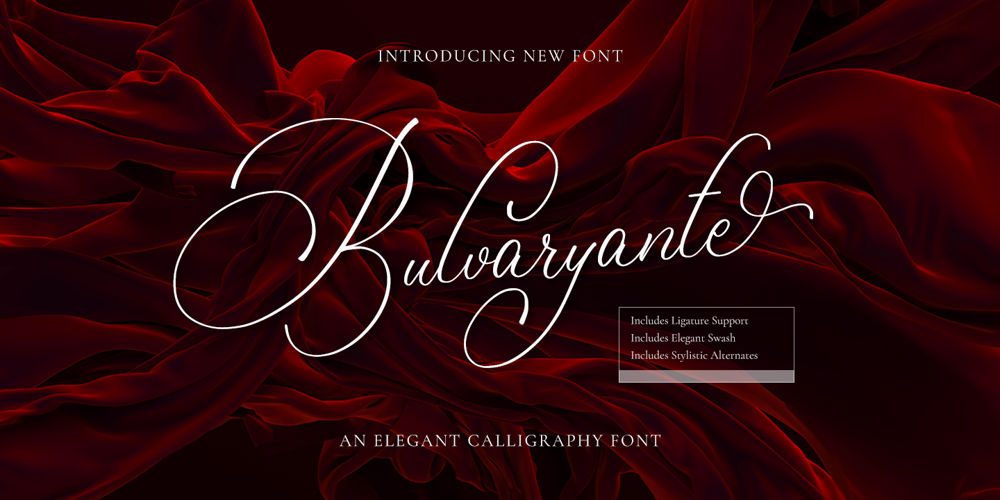
Bulvaryante
Bulvaryante font
Bulvaryante Font Family was designed by Hayinah and published by Rockboys Studio. Bulvaryante contains 1 styles and family package options. Bulvaryante is a beautiful and light handwritten font with a unique feel and a stunning impact. It will add a luxury spark to any design project that you wish to create!